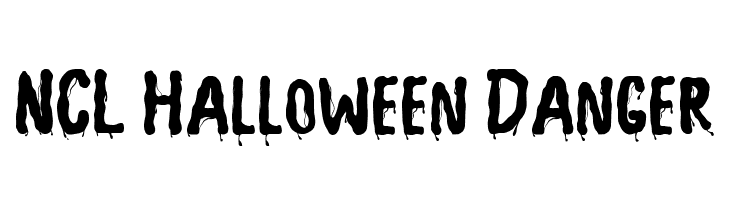
A bold, dripping font perfect for horror themes.
A playful, spooky font with a dripping, melting appearance.
A spooky, dripping font perfect for Halloween themes.
A spooky, dripping font ideal for Halloween themes.
A bold, spooky font with a dripping effect, ideal for Halloween themes.
A spooky, dripping font ideal for Halloween themes.
A bold, dripping font ideal for horror and Halloween themes.